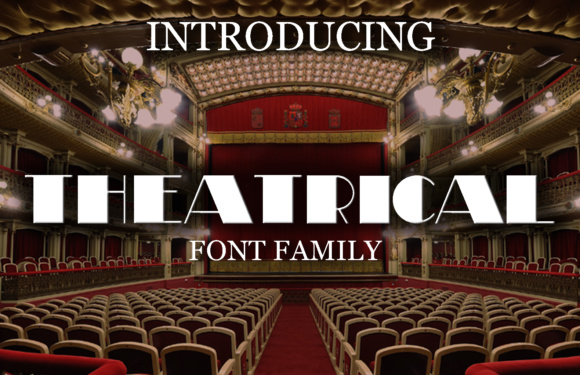
Behold, the Theatrical Font Family: A Nostalgic Journey Through the Golden Age of Typography
In a world saturated with digital monotony, Theatrical, the resplendent retro font family, emerges as a beacon of originality. This remarkable collection, meticulously crafted by the visionary designer vladimirnikolic, transports you to an era when typography was an art form, where every letter was a testament to the printer's passion.
With eight distinct styles, Theatrical offers an eclectic symphony of visual aesthetics, each with its own captivating personality. From the bold and assertive Theatrical Rough to the elegantly slender Theatrical Thin, this font family possesses a style to suit every creative vision.
Unleash your inner artist and let Theatrical's captivating glyphs dance across your designs. Its vintage charm adds a touch of nostalgia, evoking memories of classic Hollywood posters, retro advertisements, and timeless album covers.
Imagine your words, adorned with Theatrical's timeless beauty, commanding attention on posters and flyers. Picture your brand's message, emboldened by Theatrical's retro elegance, leaving an indelible impression on business cards and letterheads.
Theatrical's versatility extends beyond the printed page. Its robust digital presence makes it the perfect choice for web design, social media graphics, and eye-catching presentations. Its crisp, well-defined letterforms ensure clarity and readability, even at small sizes.
With Theatrical, you unlock a world of creative possibilities. Its distinct styles seamlessly blend with vintage and contemporary aesthetics, breathing new life into your designs.